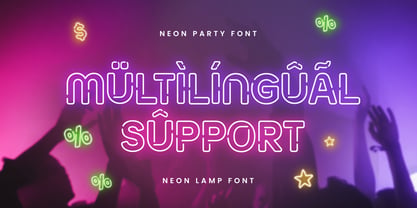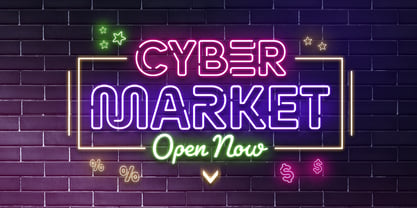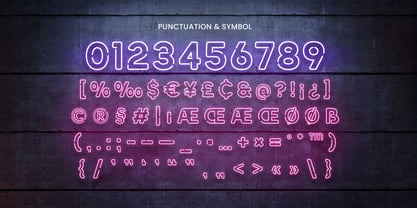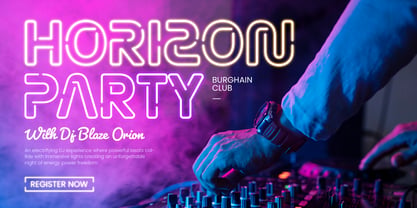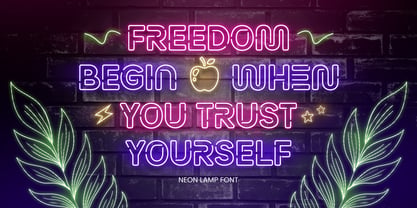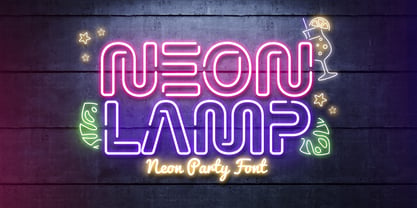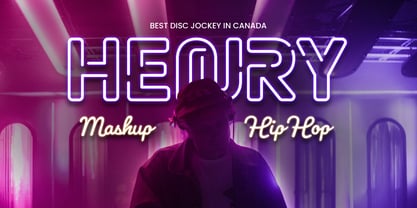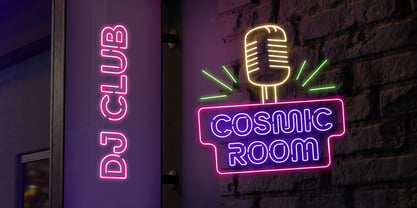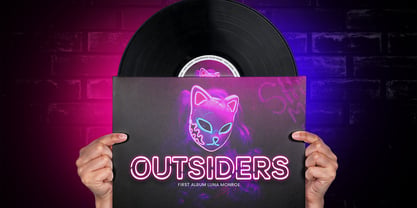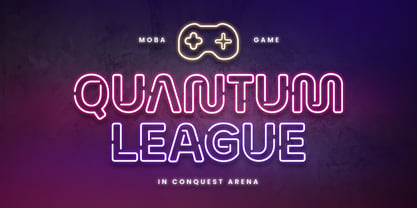
Neon Lamp
NEON LAMP is a neon party font designed to capture the energy of nightlife, bright lights, and high-impact celebration visuals. With a glowing-inspired style and bold display character, this typeface delivers an electric mood that feels fun, modern, and instantly attention-grabbing.
Built for loud, colorful typography, NEON LAMP works perfectly across event posters, club promotions, DJ flyers, music festival graphics, nightlife logos, bar menus, signage, social media promos, and eye-catching digital banners. Its neon-inspired letterforms help your message pop with a radiant, retro-cool vibe across both print and screen.
Whether you’re designing for a party brand, a music night campaign, a neon-themed event, or a playful promotional layout, NEON LAMP provides a vibrant display look that turns every headline into a glowing statement.
Inspiration Behind NEON LAMP
NEON LAMP is inspired by neon signage culture and retro nightlife aesthetics—where glowing tubes, electric color, and bold headlines define the atmosphere. The design focuses on energetic rhythm and luminous personality to support modern party branding and vibrant promotional typography.
NEON LAMP Font Features:
• Neon-inspired display letterforms with glowing party energy
• Perfect for nightlife branding, event posters, and promo headlines
• Strong visual impact for banners, signage, and digital graphics
• Uppercase, lowercase, numerals, and punctuation included
• OpenType features for polished professional typesetting
Perfect For
• Party flyers, nightclub posters, and festival promotions
• DJ events, music night campaigns, and nightlife branding
• Bar menus, signage, and neon-themed visual identity
• Social media promos, digital banners, and advertising graphics
• Headlines, titles, and vibrant modern display typography
Multilingual Support
Light up your visuals with NEON LAMP—crafted for neon party headlines with bold, electric impact. 💡✨